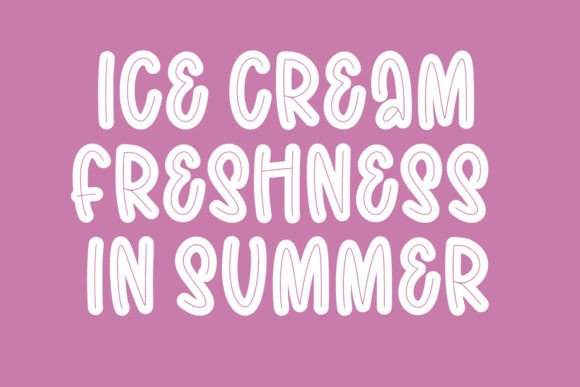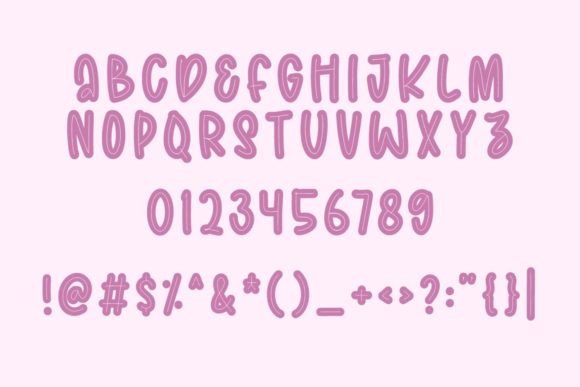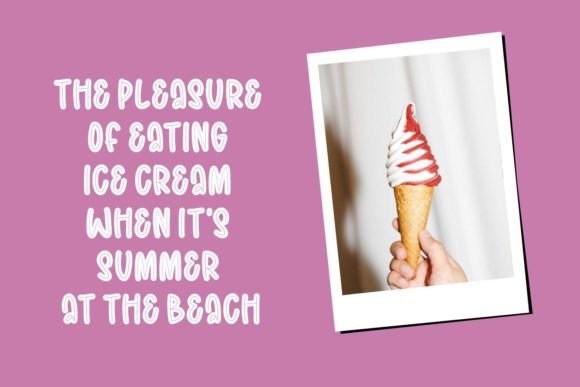
Introduction to Minie Cream Font
Minie Cream is a cool and casual handwritten font.
Why Choose Minie Cream Font?
Minie Cream Font offers exceptional quality and versatility, making it a valuable addition to your design toolkit. Whether you’re creating for personal projects or commercial use, Minie Cream Font delivers professional results.